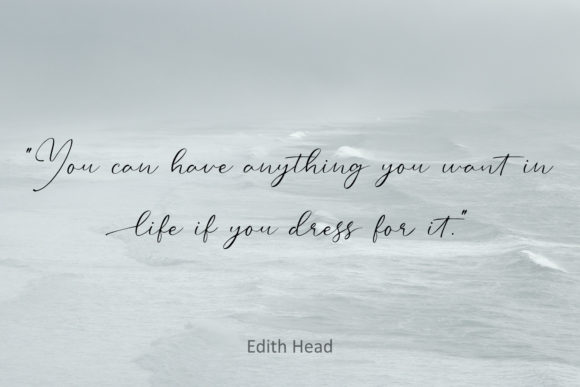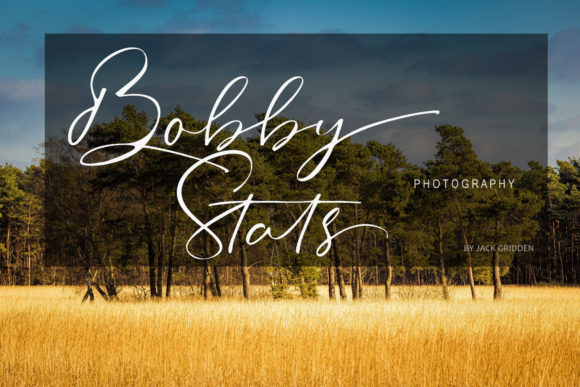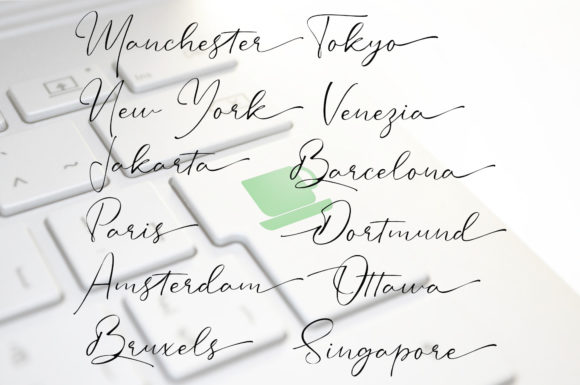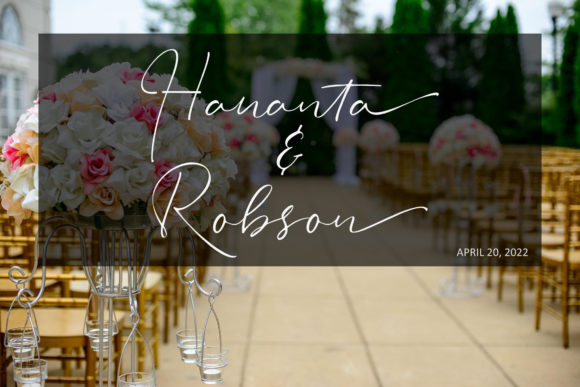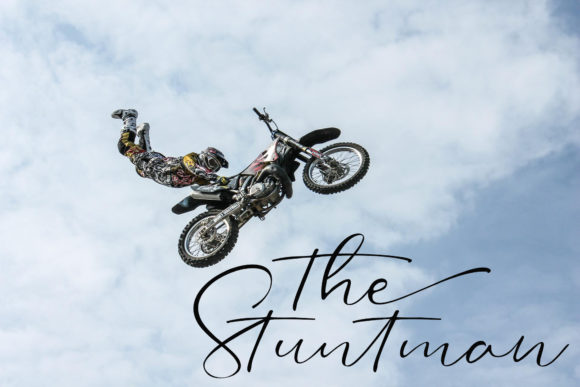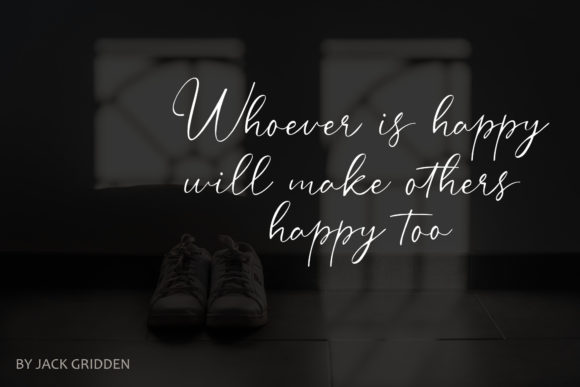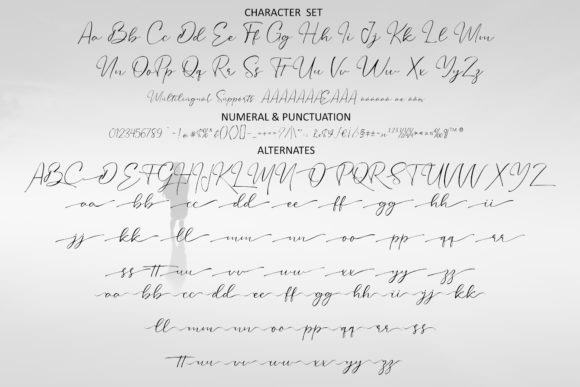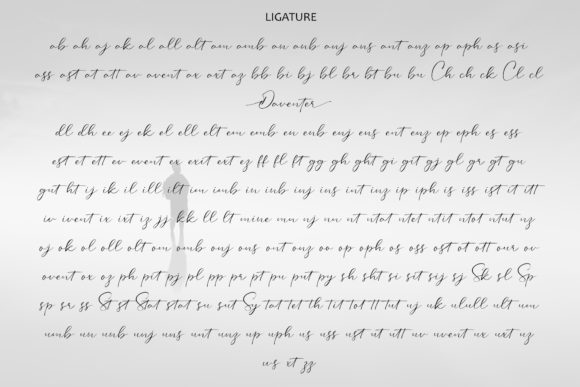
Daventer Font
About Daventer Font
Daventer, a magical script font, has been meticulously crafted with a touch of elegance, transforming any creative idea into a true piece of art. Whether you’re seeking fonts for Instagram posts, crafting calligraphy scripts for DIY projects, or working on various creative endeavors, Daventer stands out as a versatile and enchanting choice.
The font’s magical quality is evident in its graceful and expressive script, adding an element of charm and sophistication to your text. Daventer’s unique design ensures that it not only meets but exceeds the expectations of those looking to infuse a touch of magic into their designs.
Perfect for social media posts, DIY projects, or any creative venture, Daventer’s PUA encoding enhances user accessibility. With this feature, you can easily access all the glyphs and swashes, providing you with the flexibility to customize your text and make your creations truly unique. This ensures that Daventer becomes more than just a font – it becomes a tool for your artistic expression.
Whether you’re working on branding materials, invitations, or any design project that requires an elegant script font, Daventer delivers with its captivating and magical aura. Its ability to effortlessly transform ordinary text into a visual masterpiece makes it a go-to choice for those seeking a font that transcends conventional boundaries.
In summary, Daventer isn’t just a font; it’s an enchanting and elegant script that adds a magical touch to your creative projects. With its carefully crafted design and PUA encoding, Daventer ensures that your artistic endeavors are elevated, turning each idea into a work of art that captivates and inspires.